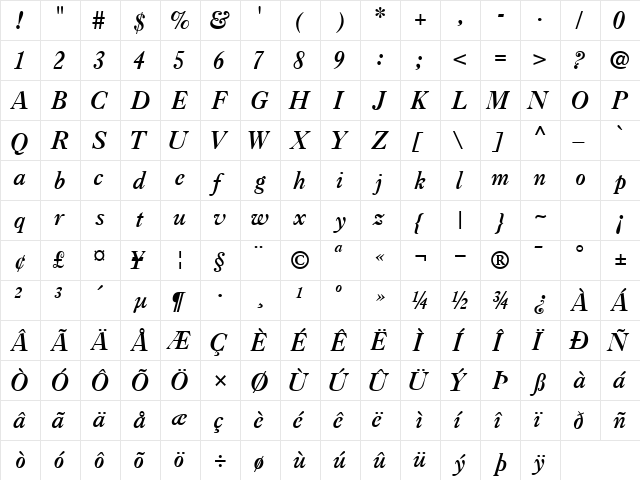
CaslonThreeSSK Italic
Design Context for CaslonThreeSSK Typeface
CaslonThreeSSK offers clean, dependable letterforms without strong stylistic allegiance, making it a practical choice for designers who need flexibility. The slanted form adds forward momentum and visual energy.
Pro Tip: Try CaslonThreeSSK for annotation and caption copy alongside an upright companion — the contrast in angle creates a dynamic but ordered typographic system.